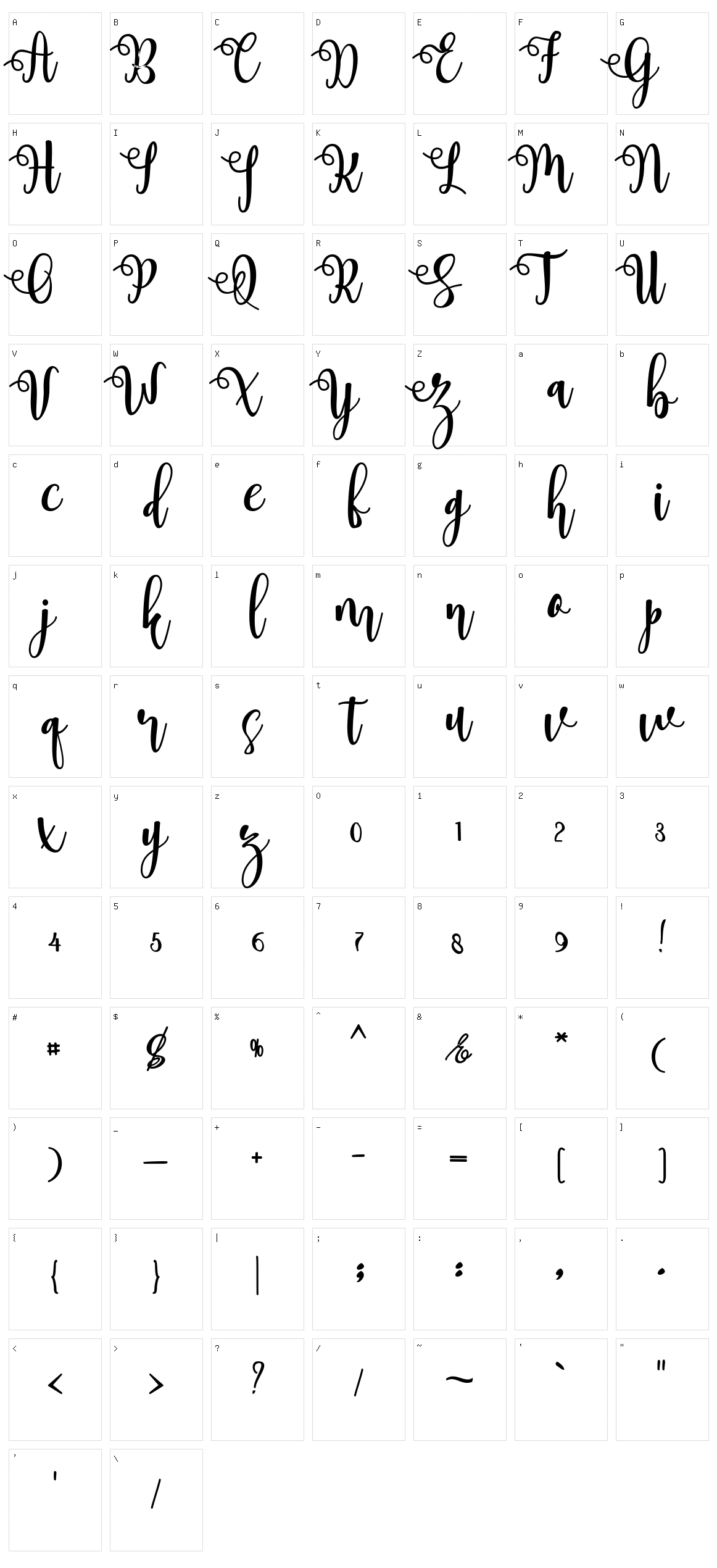
The free font Myhope is carefully designed by Halim Antoni, showcasing a thoughtful balance of creativity and usability and falls under the Script font style. When you download the ZIP file, it contains only 66.02 KB of font files, making it lightweight and quick to download. Please review the license details below to understand permitted usage and distribution rights. If license information is not available, we recommend using this font for personal projects only or contacting the author directly for commercial usage permissions.